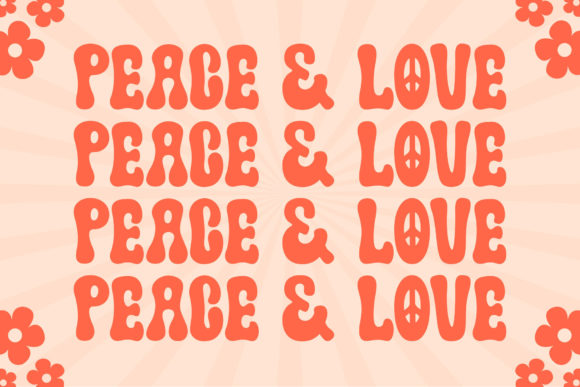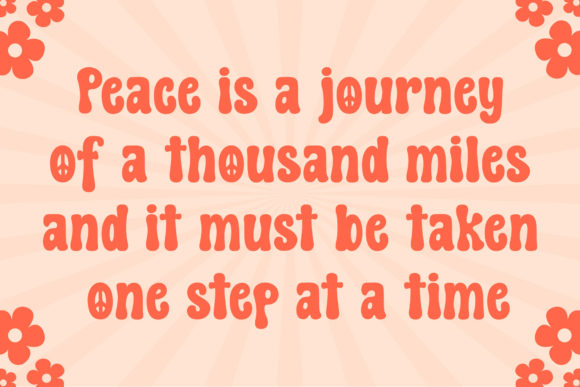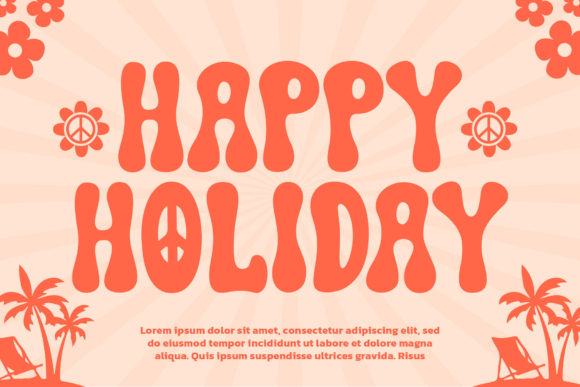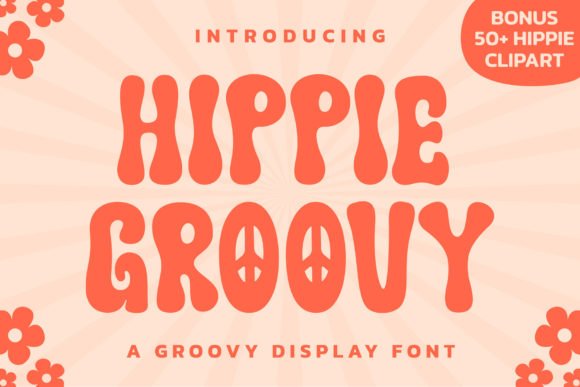
Introduction to Hippie Groovy Font
Hippie Groovy is a cool boho-style display font with charming letters and hippie-style dingbats.
This font is perfect for creating groovy t-shirts, stickers, cover books, children’s books, social media posts, etc .
Why Choose Hippie Groovy Font?
Hippie Groovy Font offers exceptional quality and versatility, making it a valuable addition to your design toolkit. Whether you’re creating for personal projects or commercial use, Hippie Groovy Font delivers professional results.